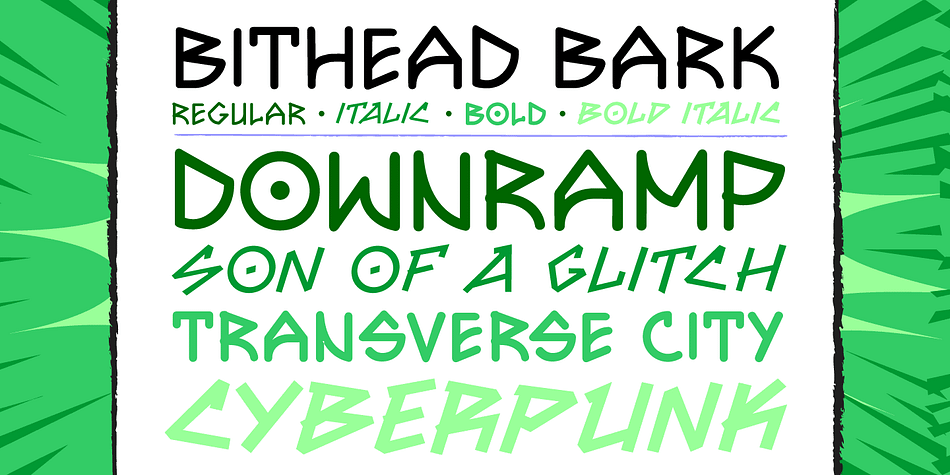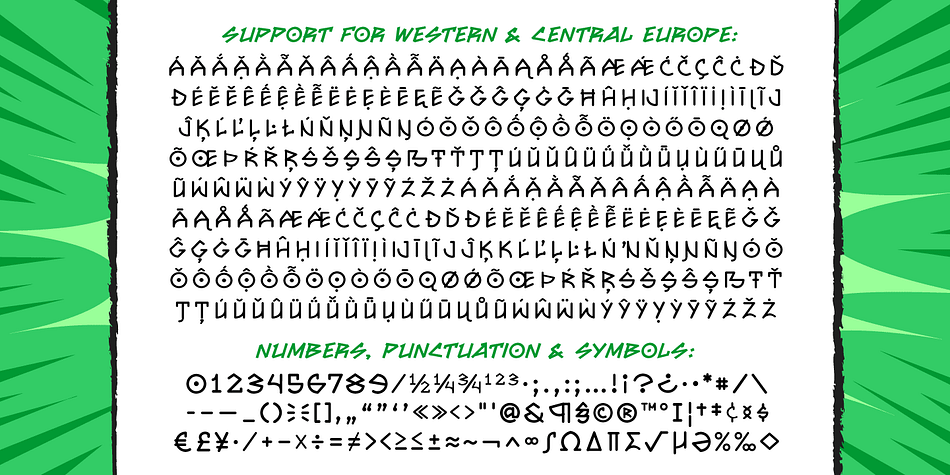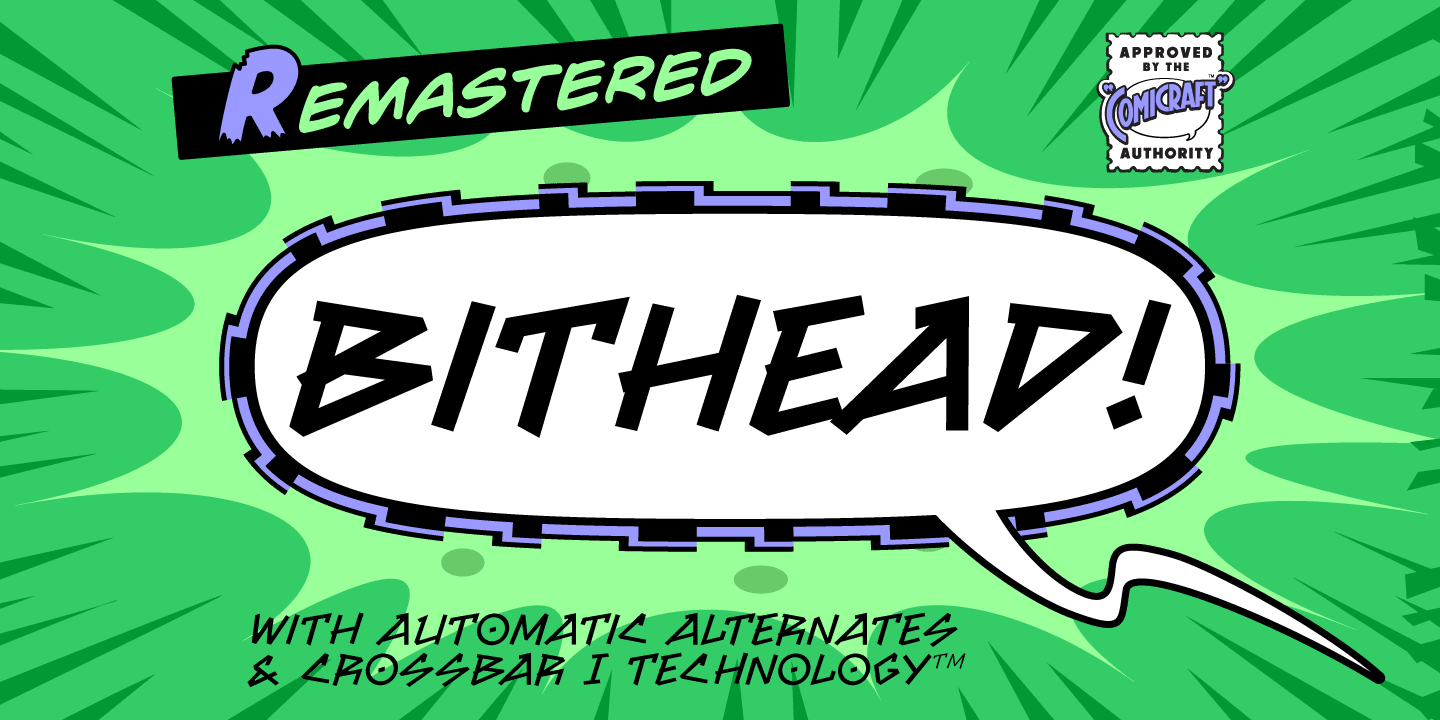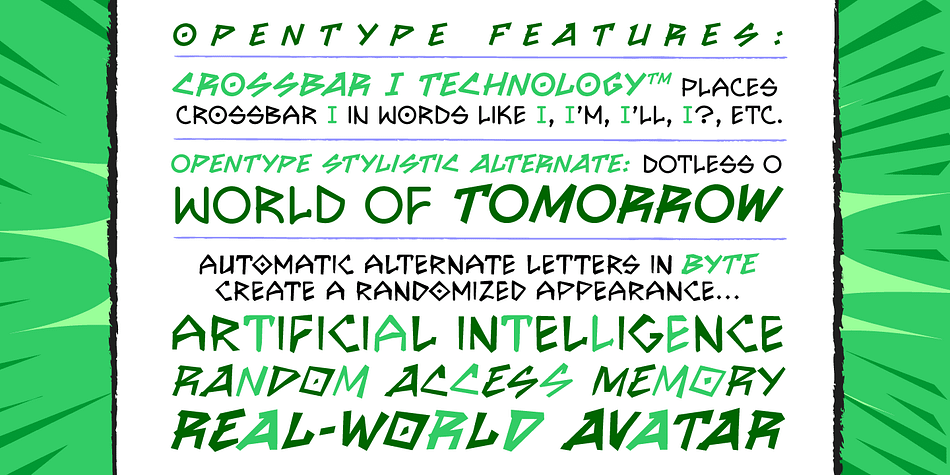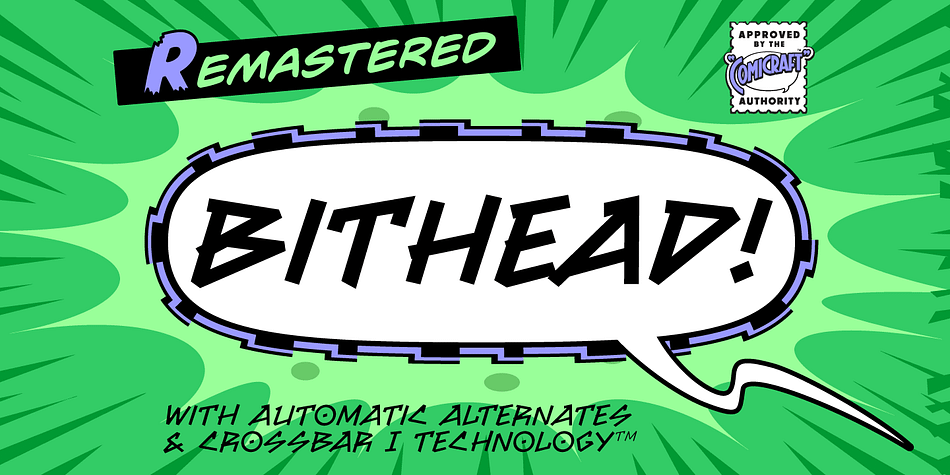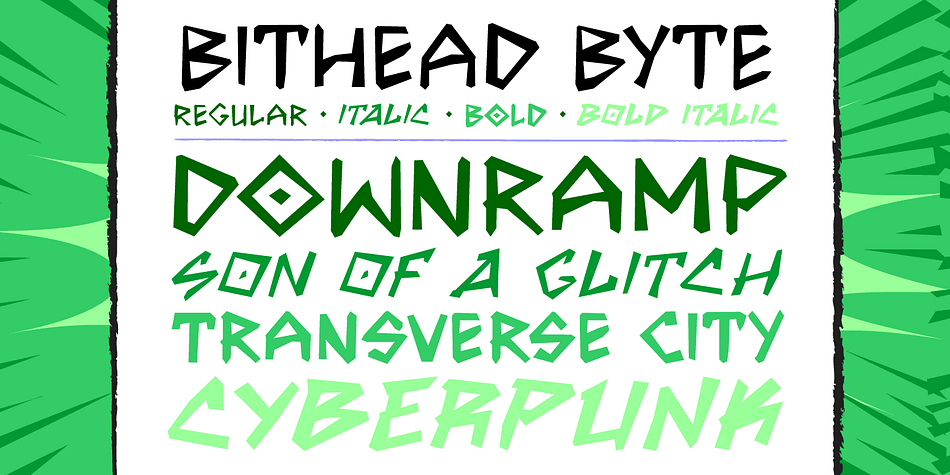
Designed by John Roshell, Bithead is a hand display font family. This typeface has two styles and was published by Comicraft.
INFO DUMP: Get jacked into cyberspace direct feed, no buffer with this hotwired font by John ‘Son of a Glitch’ Roshell. Initial upload to Ghost Rider 2099 was prematurely aborted, but not before the downramp pusbag Ozymandias pirated a jagged beta version and assaulted the Uncanny X-Men during ‘Onslaught.’